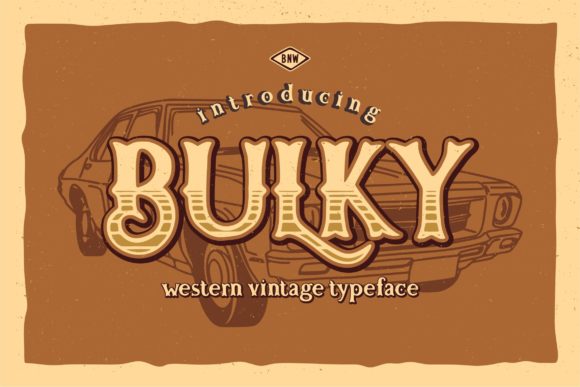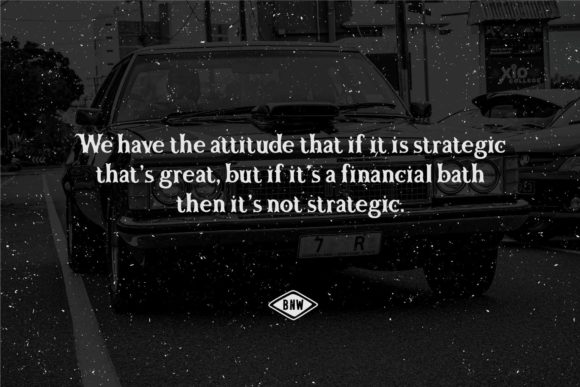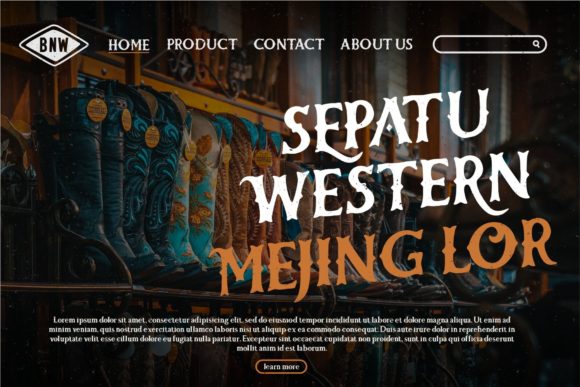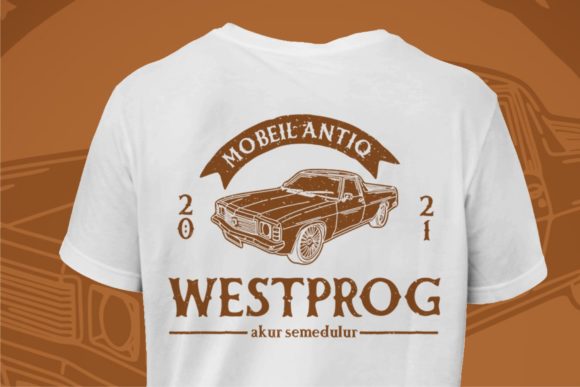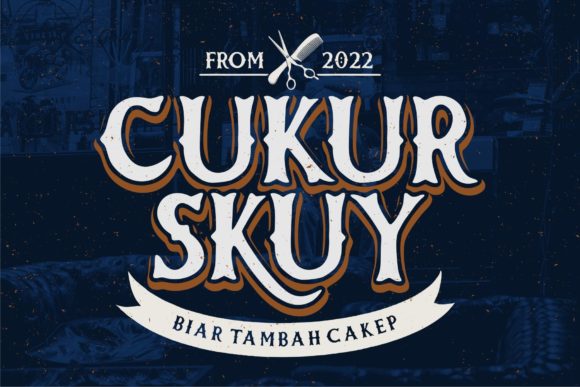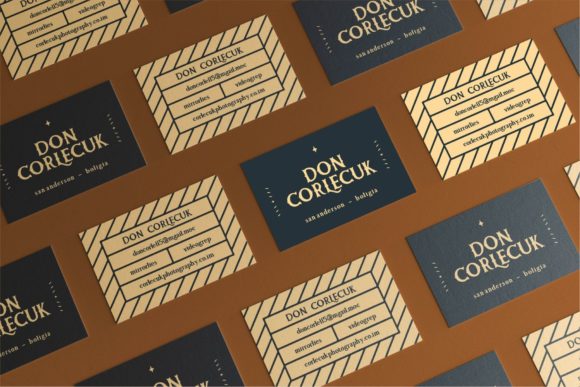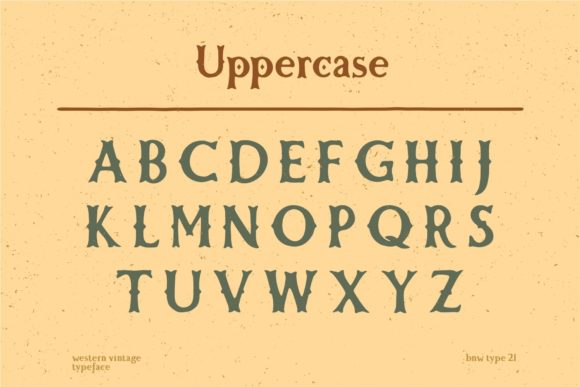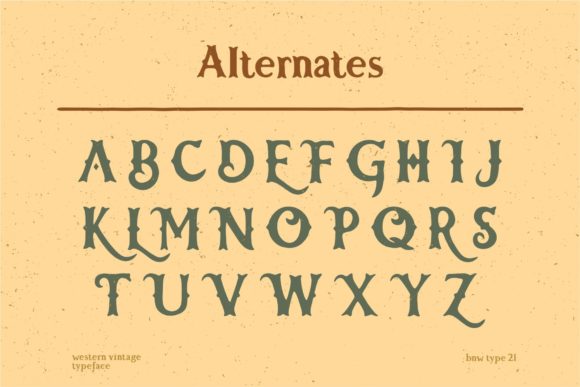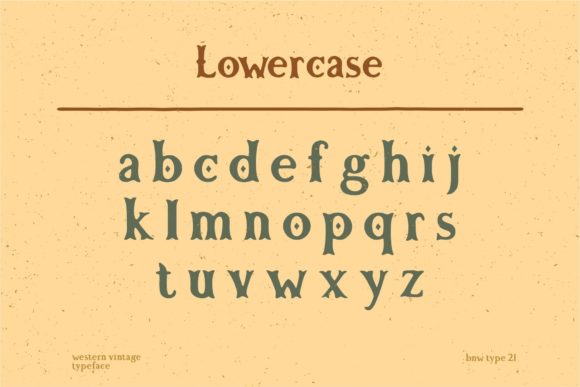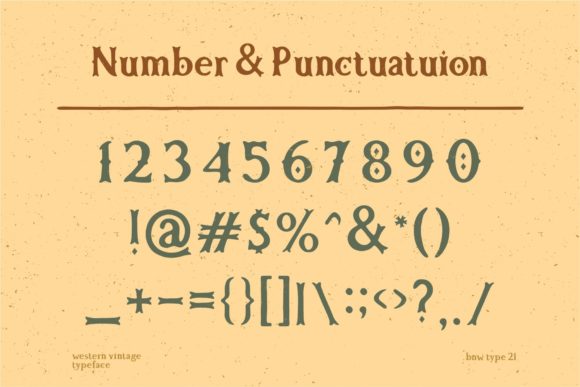
Bulky Font
BULKY FONT SPECIMEN
Introducing Bulky, a slab serif font that embodies the rugged charm and vintage allure of the Wild West. Inspired by the handcrafted signage and typography of the cowboy era, Bulky’s unique character design transports your designs back to a time of adventure and exploration.
With its bold and rugged letterforms, Bulky captures the essence of the Wild West with authenticity and flair. Each character is meticulously crafted to evoke the ruggedness and individuality of the era, adding a touch of rustic charm to your designs that sets them apart from the ordinary.
Homeware designs take on a new level of authenticity with Bulky. Whether it’s on product labels, packaging, or branding materials, Bulky infuses your designs with a sense of nostalgia and rugged appeal. From kitchenware to outdoor equipment, Bulky adds a rustic charm that resonates with customers and invites them to embrace the spirit of the Wild West.
Flyers and banners become visually captivating with Bulky’s handcrafted letterforms. Whether you’re promoting events, country-themed parties, or rodeo announcements, Bulky’s bold headlines and titles command attention and evoke a sense of excitement and authenticity that captures the imagination.
Book covers come to life with Bulky’s vintage-inspired aesthetic. Perfect for Western novels, historical fiction, or any book requiring a touch of rustic charm, Bulky sets the stage for adventure and exploration. Its unique character design adds depth and authenticity to the story, enticing readers to embark on a journey to the Wild West.
In summary, Bulky is more than just a font; it’s a window into the captivating world of the Wild West. With its vintage-inspired design and handcrafted character, Bulky infuses your designs with authenticity and charm, making it the perfect choice for homeware designs, flyers, banners, book covers, and more. Embrace the rugged spirit of the Wild West with Bulky and watch as your designs transport audiences to a bygone era of adventure and discovery.